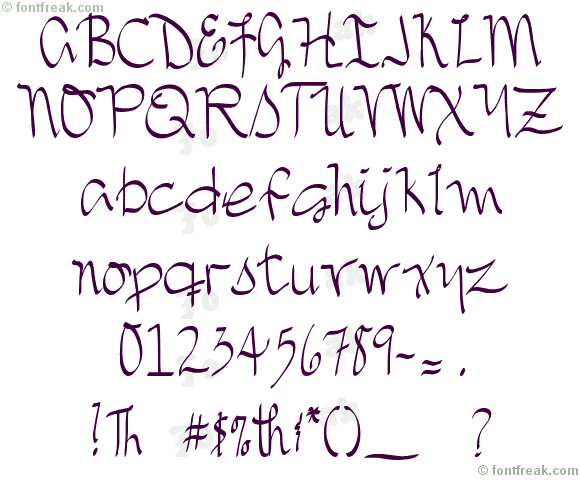
DJB TREASURE HUNT
About DJB TREASURE HUNT
DJB TREASURE HUNT, designed by Darcy Baldwin, is a distinctive handwritten typeface that captures the whimsical essence of adventure. This font exhibits a playful character with a unique, slightly irregular stroke weight that adds a touch of personality to any text. The letters are characterized by their flowing lines and decorative elements, giving the font a casual yet artistic vibe. The spacing between characters is thoughtfully balanced, ensuring readability while maintaining an inviting aesthetic.
This font is particularly well-suited for a range of creative applications. It shines in wedding invitations, where its charm can evoke romance and elegance. Additionally, DJB TREASURE HUNT is ideal for children's book covers, as its playful style resonates with a younger audience. Graphic designers may find it perfect for crafting eye-catching movie posters, adding a touch of adventure and intrigue. Restaurant menus can also benefit from this font, as it brings a sense of warmth and personality that enhances the dining experience. Content creators looking to engage their audience will find this font an excellent choice for social media graphics and promotional materials.
Author Darcy Baldwin